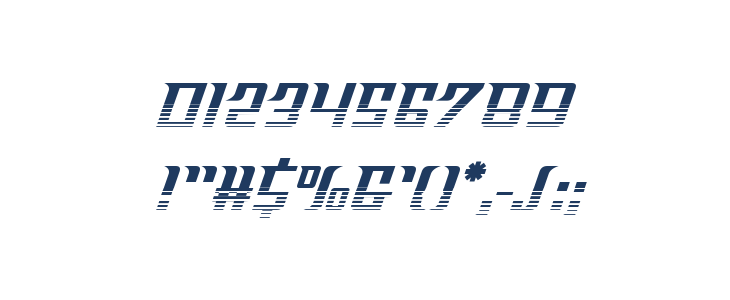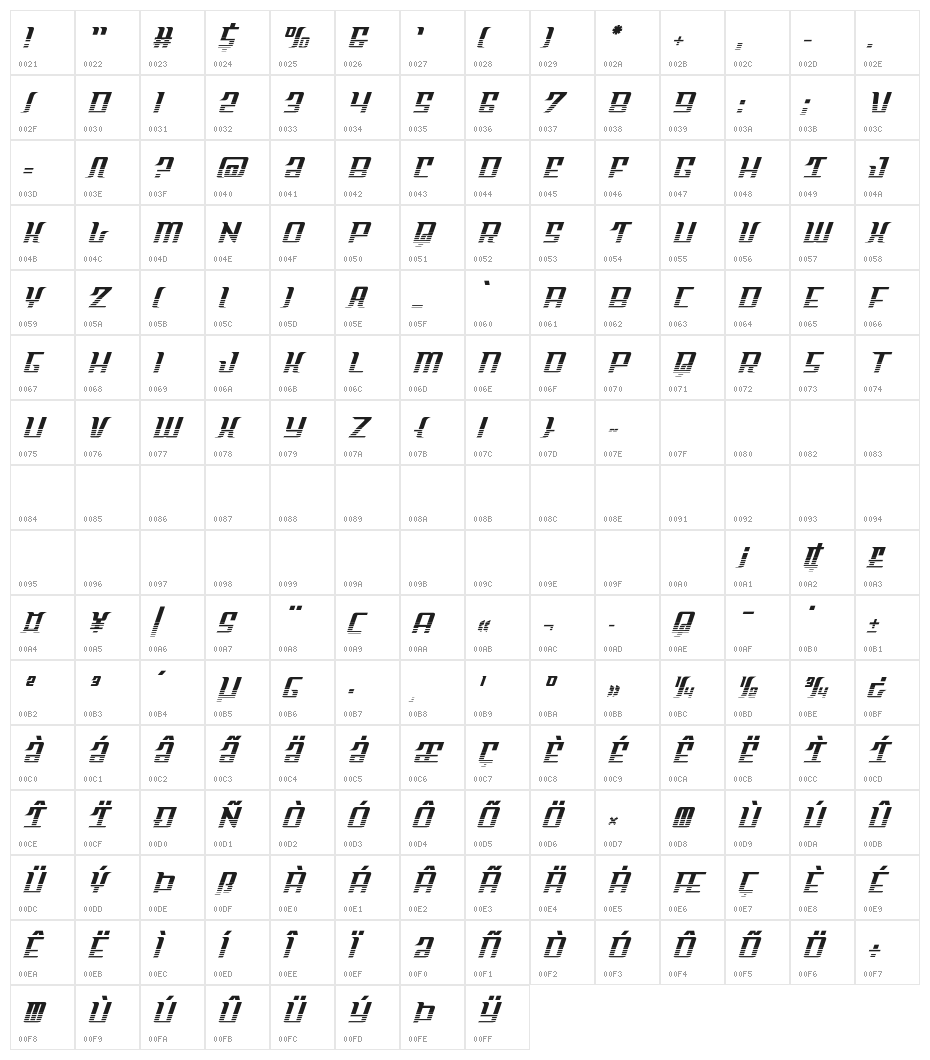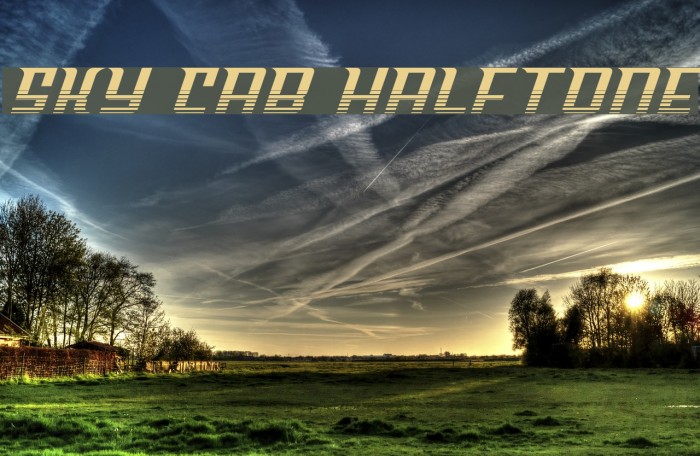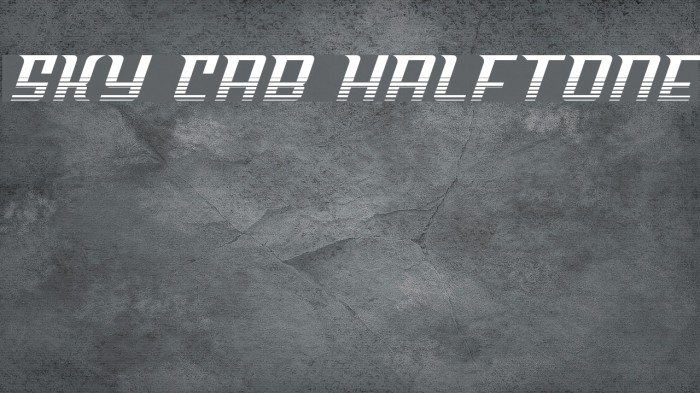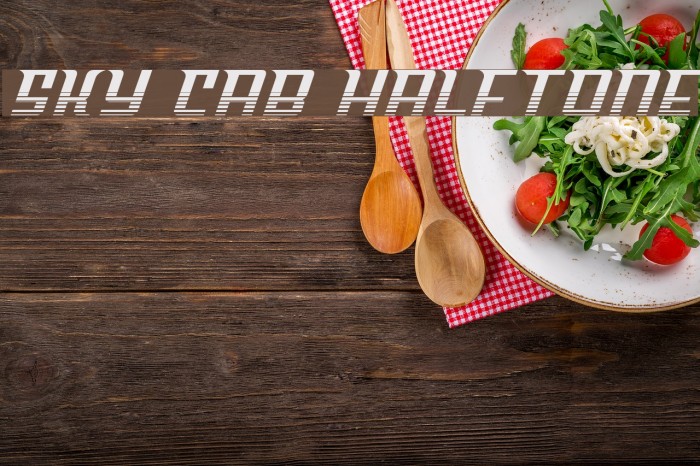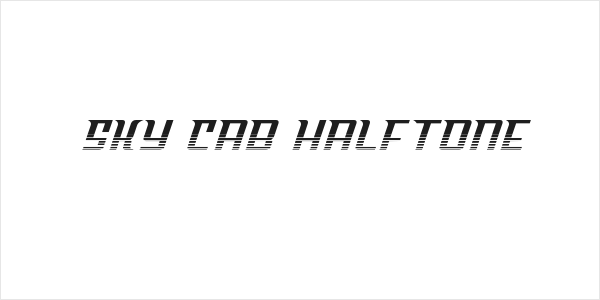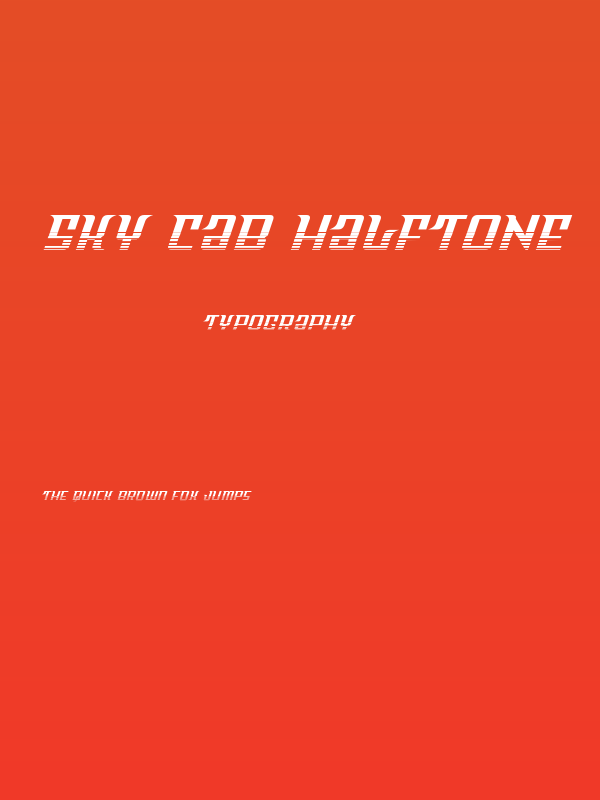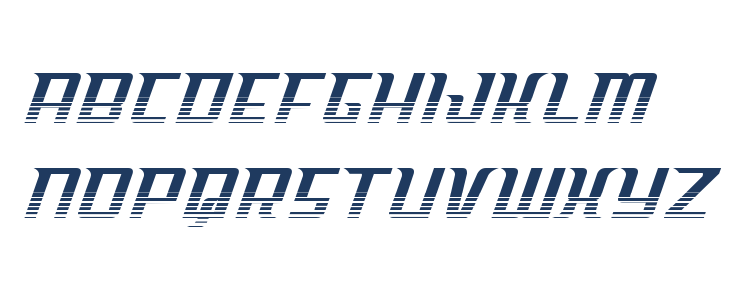
Sky Cab Halftone Font
Sky Cab Halftone Description
This font features a bold, dynamic design with a halftone effect that gives it a sense of motion and energy. The characters are slanted, adding to the impression of speed and forward movement. Each letter is composed of horizontal lines that create a unique visual texture, making it stand out in any design. The uppercase and lowercase letters maintain a consistent style, while the numbers and special characters complement the overall aesthetic. This font is ideal for projects that require a futuristic or high-tech look, such as branding for technology companies, sports teams, or automotive industries. Its distinctive appearance ensures that it captures attention and leaves a lasting impression.
| Proposed Projects | Technology branding, sports team logos, automotive industry designs, futuristic posters. |